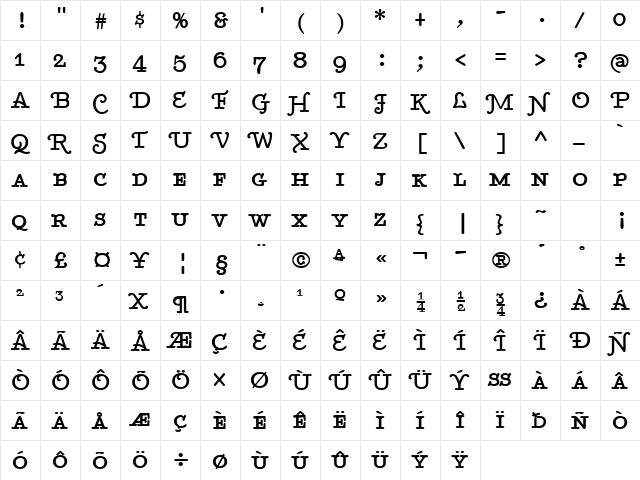
BetterTypeRiteSpec Bold
Design Context for BetterTypeRiteSpec Typeface
BetterTypeRiteSpec takes a measured approach to typography — its balanced proportions and neutral character make it a reliable workhorse for both digital and print work. The heavy weight commands attention and anchors typographic hierarchies.